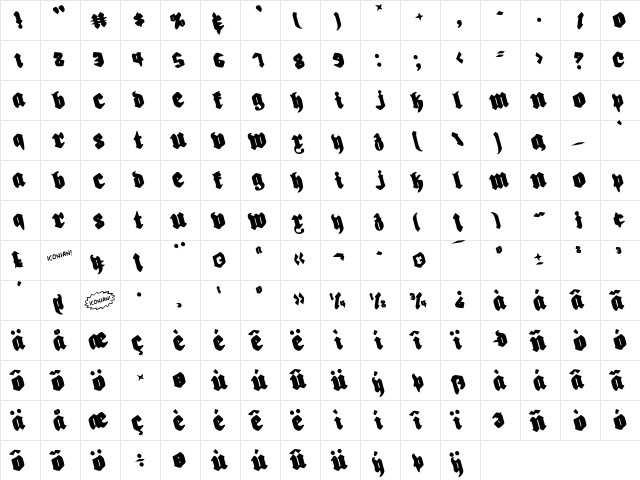
Bierg䲴en Rotate Rotate
Design Context for Bierg䲴en Rotate Typeface
Bierg䲴en Rotate is a composed and adaptable typeface that performs quietly and consistently across a wide range of design contexts.